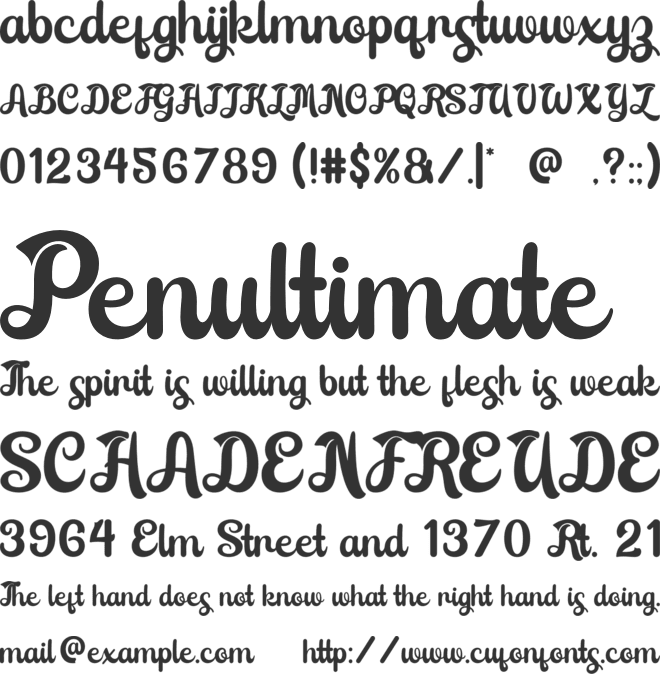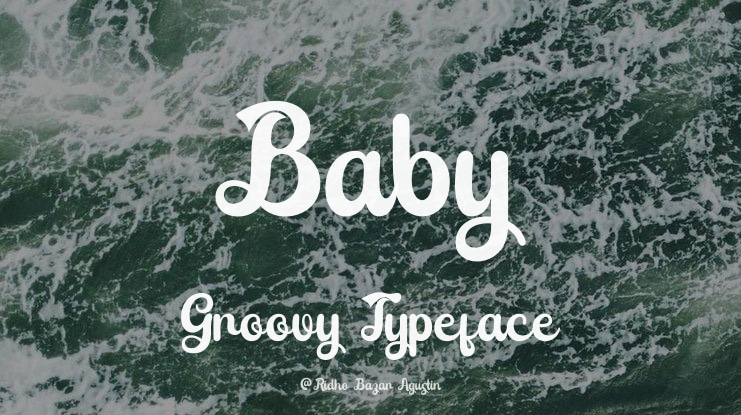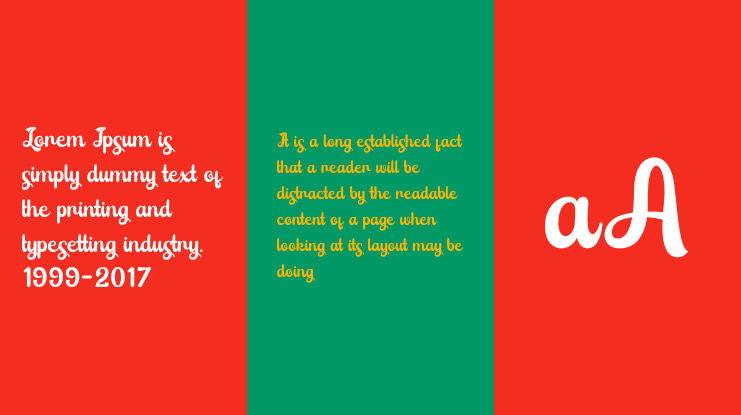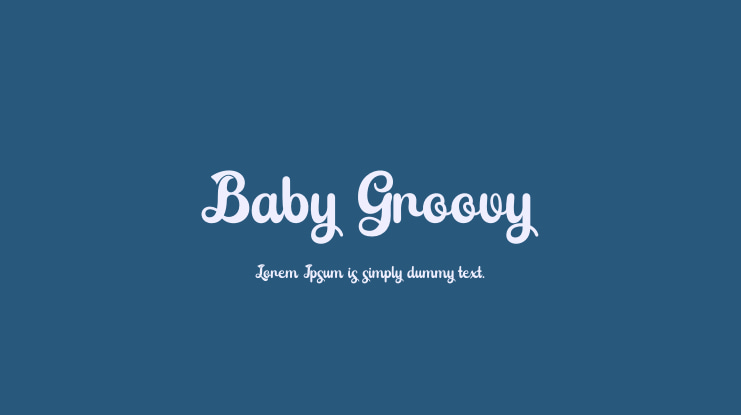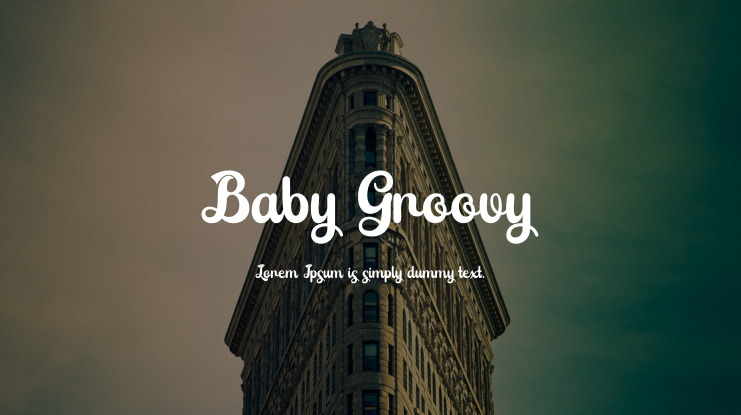
Baby Groovy Font
Baby Groovy is a cool, vintage-style handwritten display font. It's perfect for adding a special retro touch to any design! This versatile font can be used for logos, branding, invitations, stationery, wedding designs, social media posts, and much more. Moreover, Baby Groovy is PUA encoded, allowing you to easily access all its glyphs.